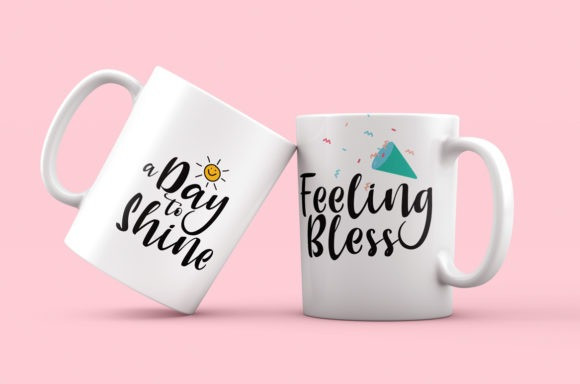
Jelly Blush Script Font
Jellyblush is a cute & sweet handwritten font.
Jellyblush is perfect for branding projects, logo, wedding designs, social media posts, advertisements, product packaging, product designs, label, photography, watermark, invitation, stationery and any projects that need handwriting taste.